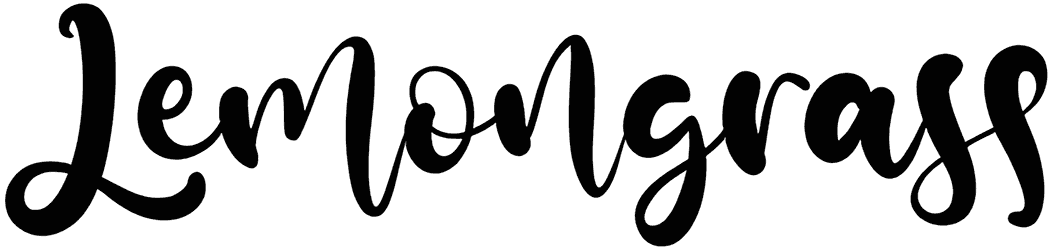
Lemongrass Font
The Lemongrass font can make a good day in the graphics world with its playful and cheerful characters. Handwritten and script font characters can make designing many cosmetic brand packaging, girly themes, and birthday cards easy.
The combination of small and large characters indeed makes for a spring font, but it is also true that it may affect the readability of the text to a certain degree.